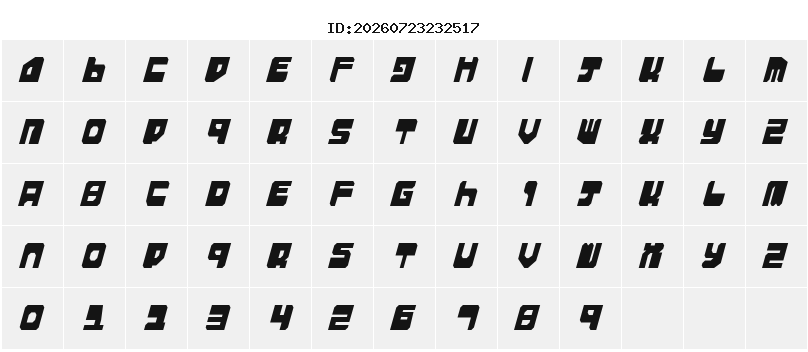
Extechchop Condensed Preview
About Extechchop Condensed.ttf
Extechchop Condensed.ttf is a modern, elegant sans-serif font designed for ultimate readability and visual harmony. Perfect for branding, headlines, web design, and print materials.